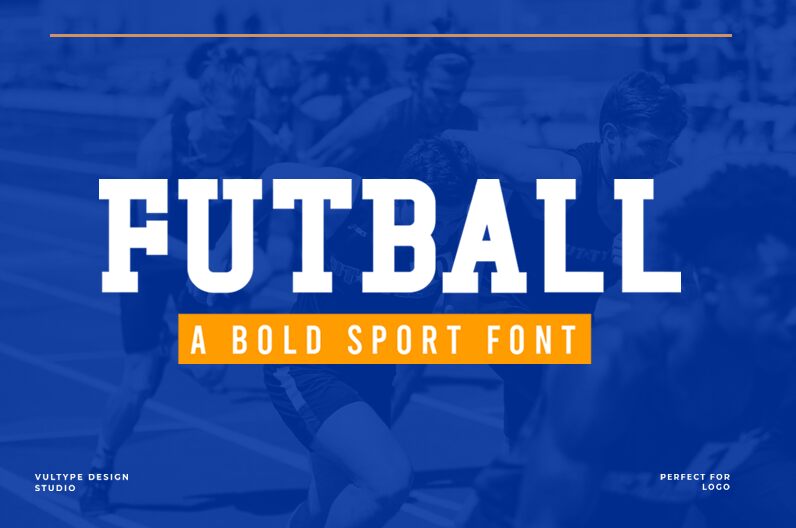
Futball
Futball font by Vultype is a striking display typeface that encapsulates a nostalgic old school vibe with its bold slab serif structure.
Its condensed form lends an impactful presence, making it ideal for eye-catching headers and standout branding projects. The font marries vintage charm with modern sensibilities, making it versatile for diverse design ventures. Whether you’re crafting retro-themed posters or dynamic sports-related graphics, Futball offers a perfect blend of style and readability.